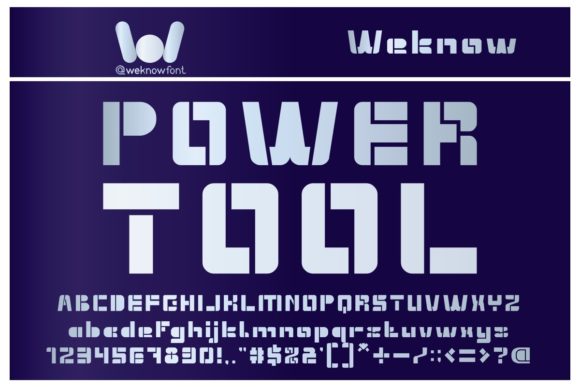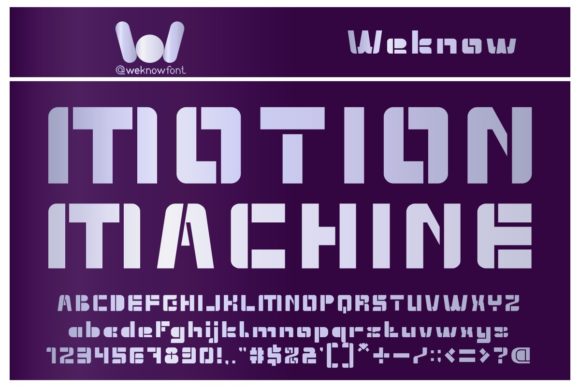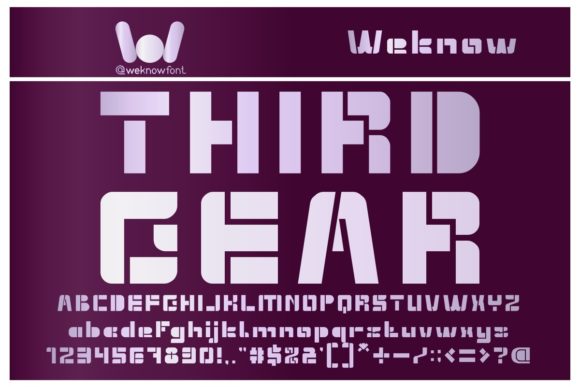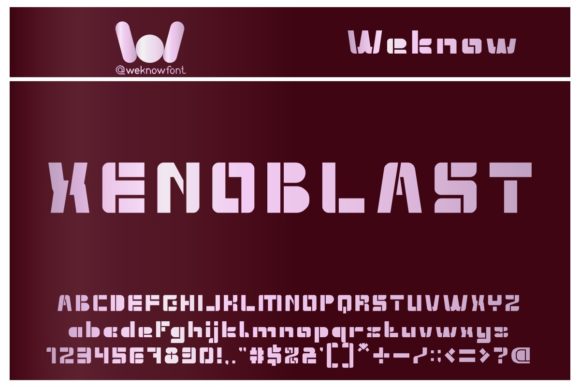
The Perfect Blend of Edginess and Elegance: Extra Machine Font
Have you ever been stuck on a design project, struggling to find the perfect font to capture the essence of your vision? You know, that moment when everything else seems to fall into place, but that one crucial element – the font – just won’t cooperate. Well, we’re here to tell you that those days are behind you, thanks to the Extra Machine Font.
This bold and thick lettered display font is specifically designed to make a statement, and we’re not just talking about any statement – we’re talking about a bold, eye-catching declaration that demands attention. Whether you’re working on a corporate identity, a music project, or a YouTube video, the Extra Machine Font is the perfect addition to your creative arsenal.
What makes the Extra Machine Font truly valuable for designers is its versatility and adaptability. From logos to posters, and from magazine covers to book titles, this font is the ultimate problem-solver for any design project that needs a little extra oomph.
Extra Machine Font Key Features
- Font Family: Extra Machine Font is a sans-serif font family designed for digital use.
- Character Set: Supports a wide range of characters, including Latin, Cyrillic, and Greek alphabets, as well as various symbols and punctuation marks.
- Unique Characteristics: Features a futuristic and industrial aesthetic, with distinctive geometric shapes and sharp lines that give it a unique, high-tech feel.
Extra Machine Font Review
Overall, I’m really impressed with the Extra Machine Font. The designers have done a fantastic job in creating a unique and futuristic aesthetic that’s sure to stand out in any digital design project. ✨
- The font’s geometric shapes and angles give it a really edgy feel that’s perfect for tech or sci-fi related projects.
- The font is highly customizable, with a wide range of weights, styles, and sizes to choose from.
- The font is optimized for both on-screen and print use, making it a versatile choice for a variety of applications.
- The font may not be suitable for projects that require a more traditional or classic look.
- The font’s bold and edgy feel may not be suitable for all audiences, particularly those who prefer a more subtle or understated design aesthetic.
- Using it for bold, industrial-style typography.
- Pairing it with other fonts to create a unique and modern look.
- Using it for headings and titles to add a touch of edginess.
Overall, I think the Extra Machine Font is a great choice for designers who want to add a touch of futurism and edginess to their projects. While it may not be suitable for all projects or audiences, I think it’s a great addition to any designer’s toolkit.